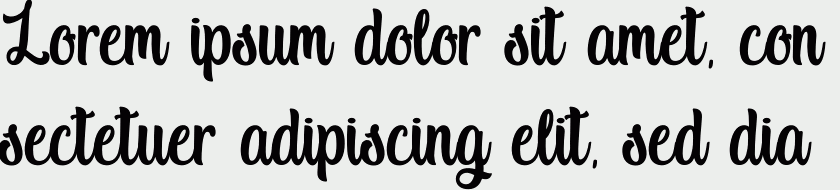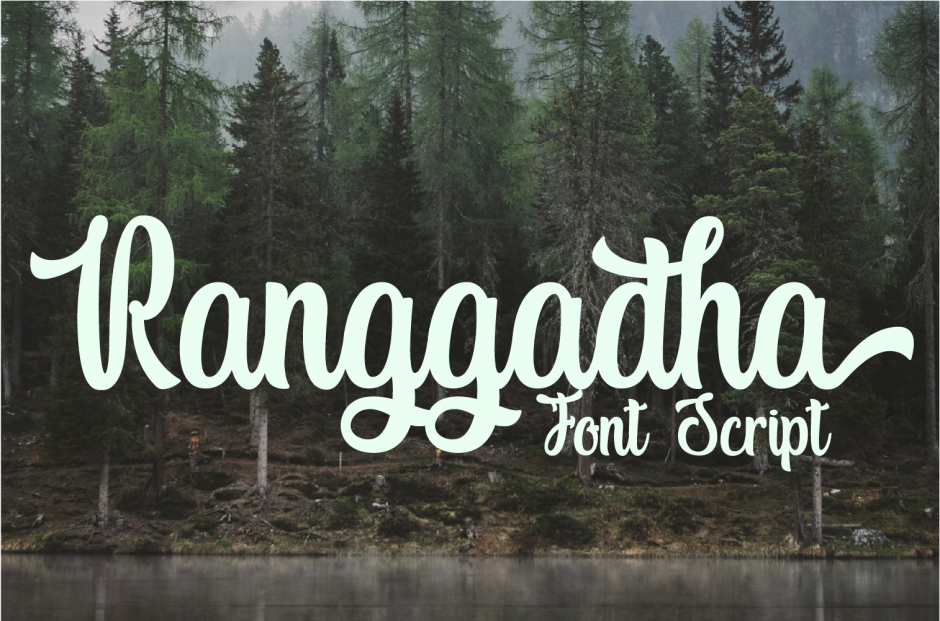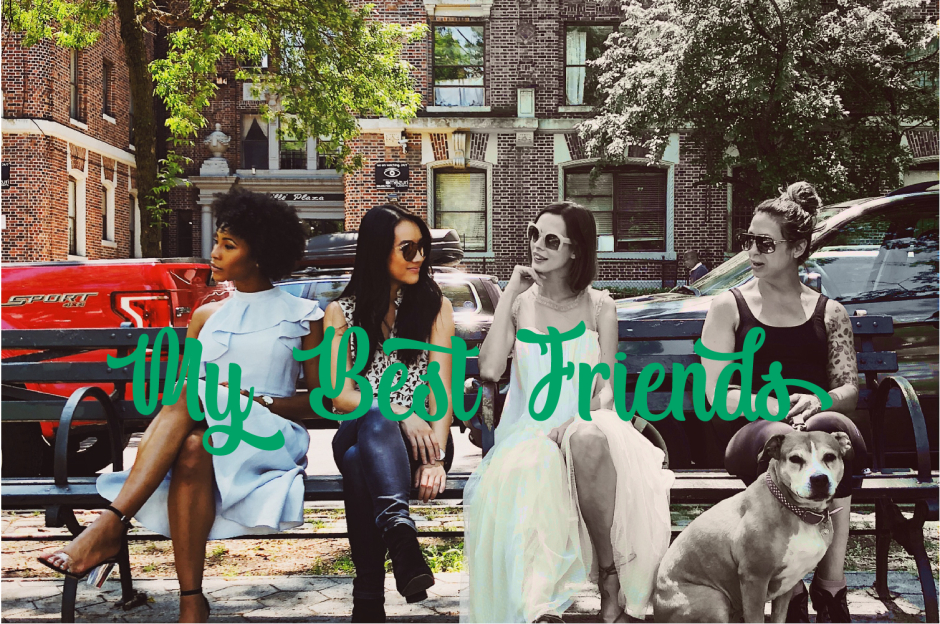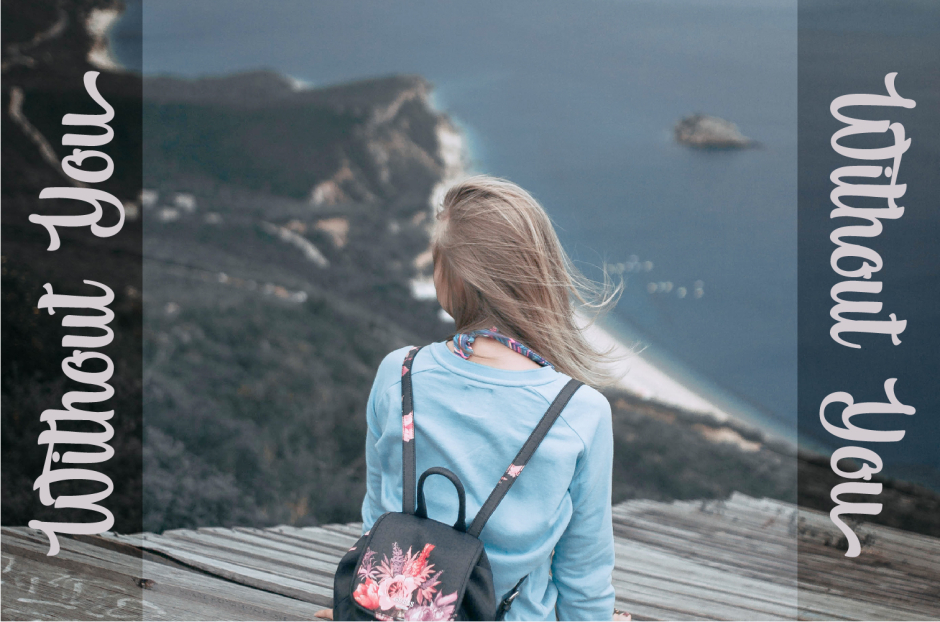
Ranggadha
Introducing the elegant new Ranggadha! For those of you who are needing a touch of elegance and modernity for your designs, this font was created for you!
Ranggadha was built with OpenType features and includes beginning and ending swashes, alternate swash characters for most lowercase letters, numbers, alternates, and ligatures.